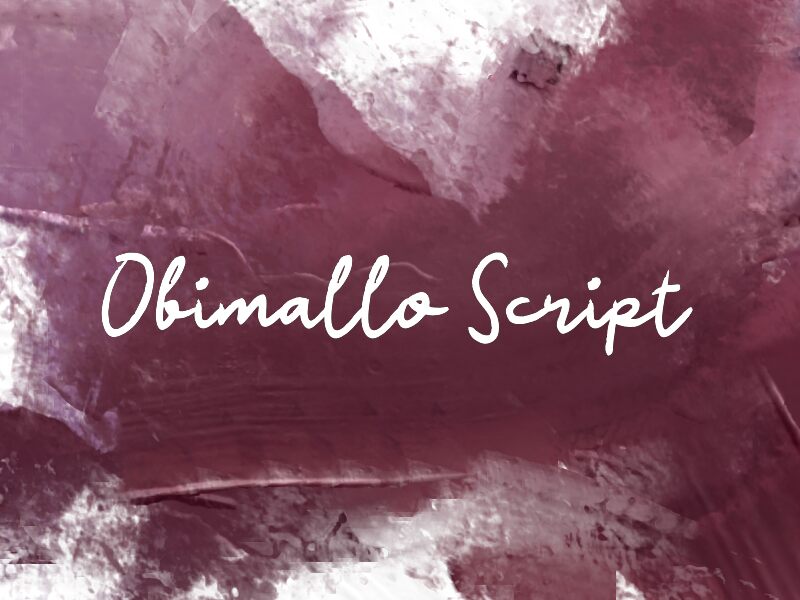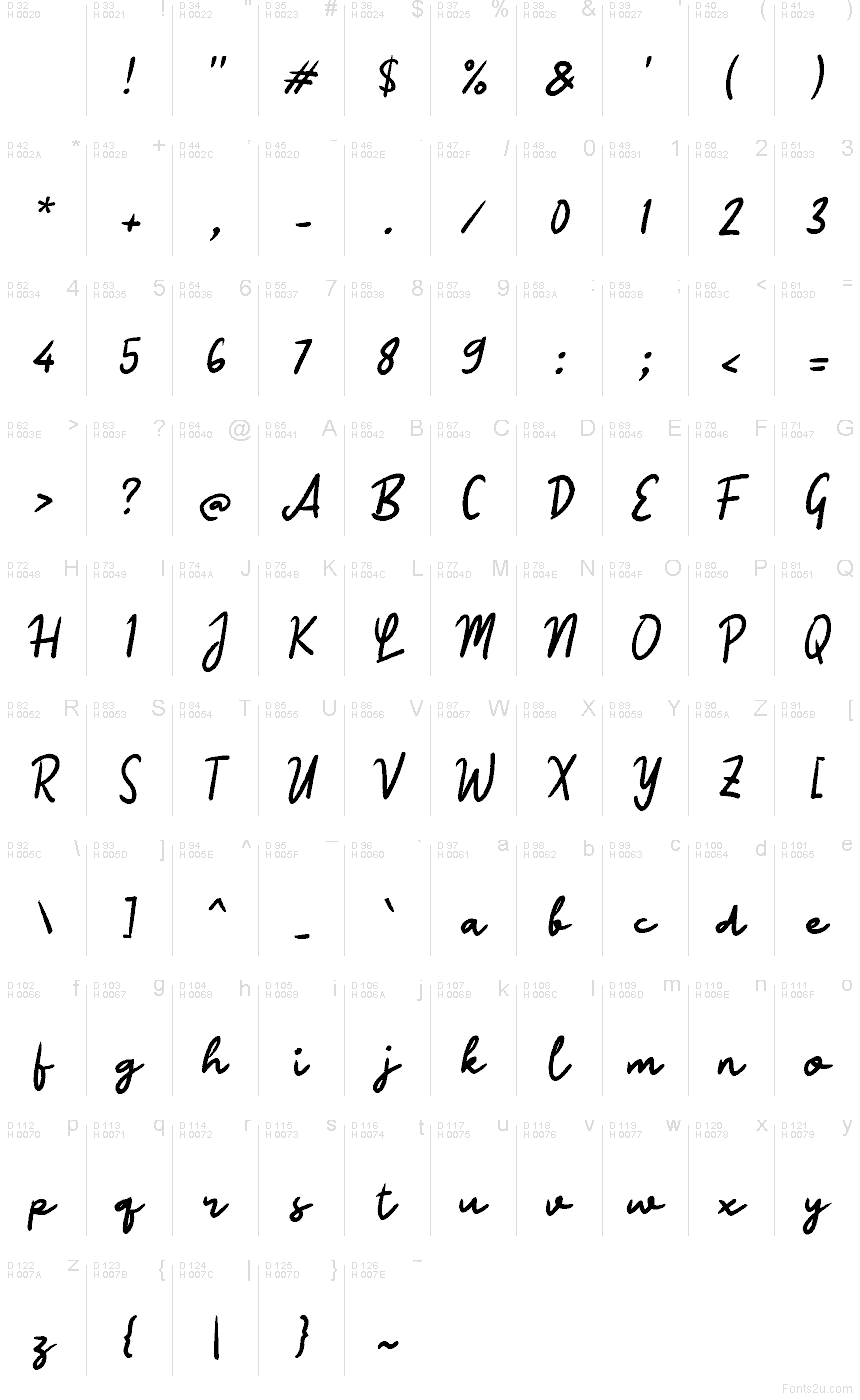
Obimallo Script
Obimallo Script font by wep is a free handwritten script typeface that solves the gap between messy scribbles and stiff calligraphy. Its smooth, inky strokes feel like quick notes from a favorite notebook—casual, slightly textured, and relaxed—yet the letters stay clean and easy to read. The gentle slant and soft curves give it warmth without slipping into cliché “cute” territory, so it still works in grown-up, brand-ready contexts.
Using Obimallo Script, you can add personality to social media graphics, quote posts, product packaging, café or boutique logos, informal invitations, and journal-style layouts. The rhythm of the letters keeps lines flowing nicely, which helps headlines and name treatments feel natural instead of forced. This free font pairs beautifully with a simple geometric sans like Montserrat or Poppins—use Obimallo Script for the main wordmark or title, and the sans for supporting text at smaller sizes.